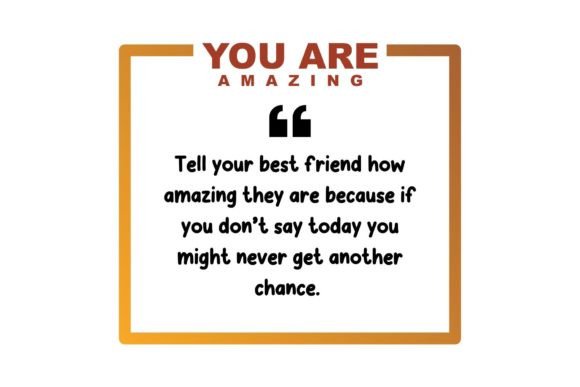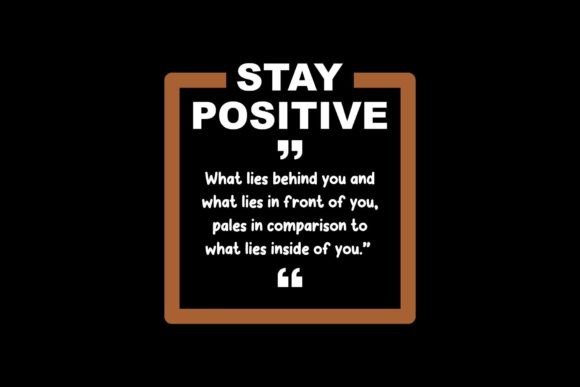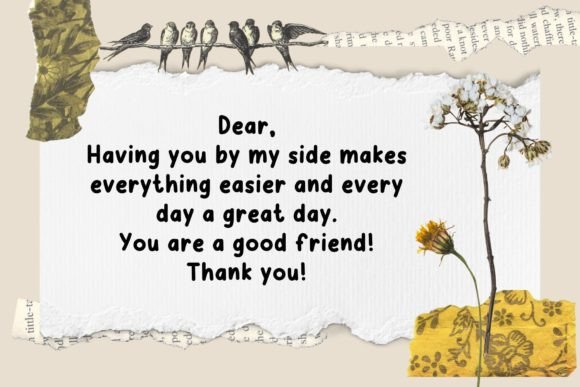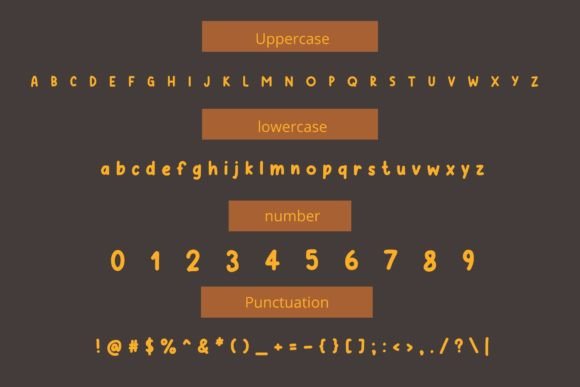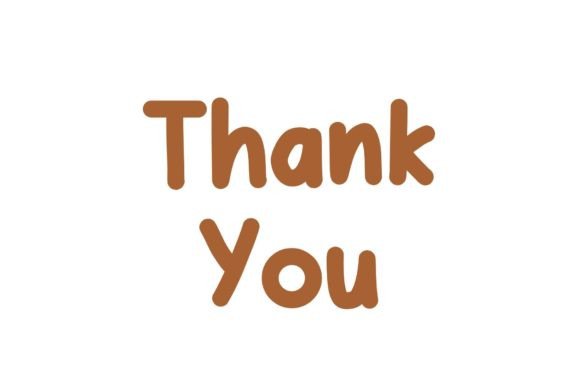
Browno Font: The Perfect Handwritten Addition to Your Designs
Are you looking for a font that embodies playfulness and authenticity? Look no further than Browno Font! This cute handwritten font is perfect for adding a personal touch to all your favorite projects, from blog posts and logos to branding and ads. In this article, we’ll explore the features and benefits of Browno Font, and show you how to make the most of this versatile and charming font.
What is Browno Font?
Browno Font is a unique and charming handwritten font that is designed to bring a touch of personality to your designs. With its playful and authentic feel, Browno Font is perfect for a wide range of projects, including:
- Blog posts: Add a personal touch to your blog posts and make them stand out from the crowd.
- Logos and branding: Create a memorable and recognizable brand identity with Browno Font.
- Ads: Make your ads more engaging and attention-grabbing with this cute and playful font.
- Invitations and greeting cards: Add a personal touch to your invitations and greeting cards with Browno Font.
- Planners and photo albums: Make your planners and photo albums more special with this charming font.
- Decorations: Use Browno Font to add a personal touch to your decorations, such as signs, banners, and more.
Features of Browno Font
Browno Font has a range of features that make it the perfect choice for designers and crafters. Some of its key features include:
- Handwritten style: Browno Font has a unique and charming handwritten style that adds a personal touch to your designs.
- Playful and authentic feel: This font embodies playfulness and authenticity, making it perfect for a wide range of projects.
- Versatile: Browno Font can be used for a wide range of projects, from blog posts and logos to branding and ads.
- Easy to read: Despite its playful style, Browno Font is easy to read and understand, making it perfect for body text and headings.
Benefits of Using Browno Font
So why choose Browno Font for your designs? Here are just a few benefits of using this charming font:
- Adds a personal touch: Browno Font adds a personal touch to your designs, making them more relatable and engaging.
- Stand out from the crowd: With its unique and playful style, Browno Font helps your designs stand out from the crowd.
- Perfect for creative projects: Browno Font is perfect for creative projects, such as craft tutorials, DIY projects, and more.
Tips and Tricks for Using Browno Font
Here are a few tips and tricks for using Browno Font:
- Use it sparingly: Use Browno Font sparingly to add emphasis to your designs.
- Mix and match: Mix and match Browno Font with other fonts to create a unique and interesting design.
- Have fun: Most importantly, have fun with Browno Font! It’s a versatile and playful font that’s perfect for creative projects.
In conclusion, Browno Font is a charming and versatile handwritten font that’s perfect for adding a personal touch to your designs. With its playful and authentic feel, Browno Font is perfect for a wide range of projects, from blog posts and logos to branding and ads. So why not give it a try and see the results for yourself?